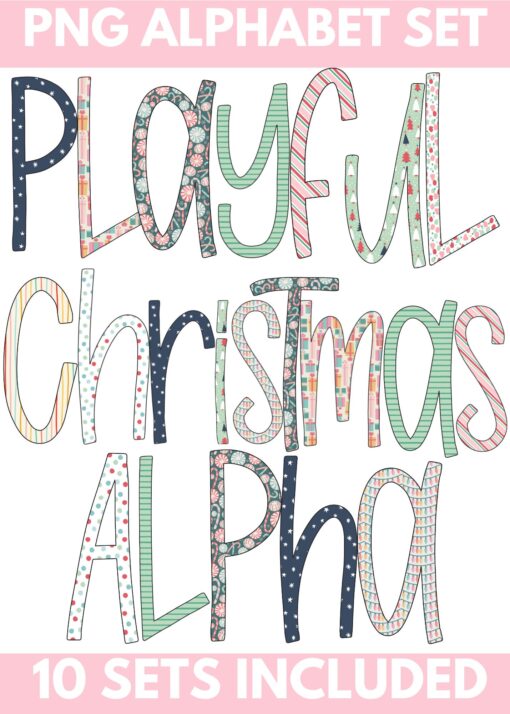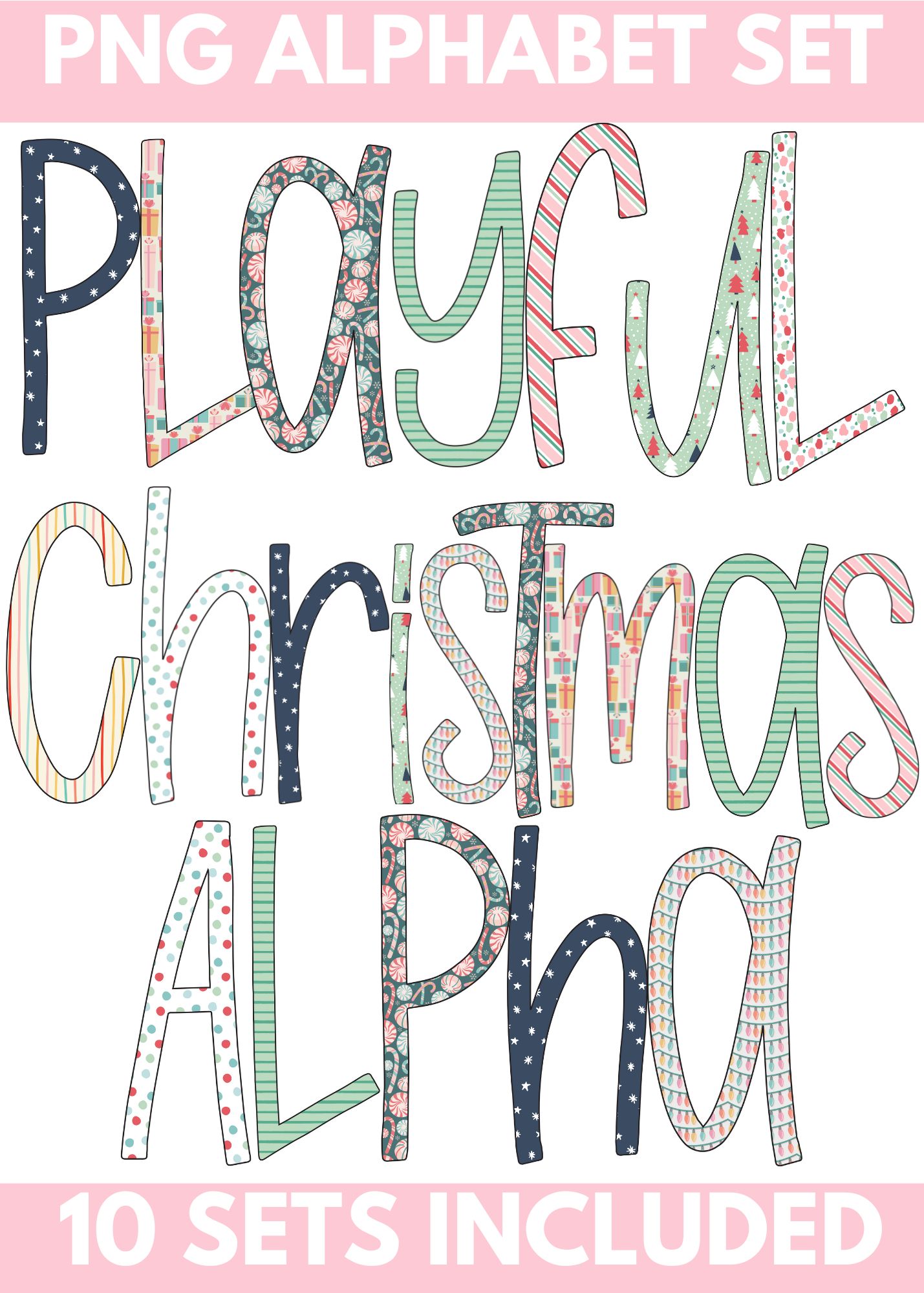
Playful Christmas PNG Alpha Font – 10 Complete Sets – DIGITAL DOWNLOAD
10-Set PNG Alpha Bundle – Patterned Designs
Take your designs to the next level with our PNG Alpha Bundle, featuring a variety of unique patterns! This versatile collection is perfect for T-shirt makers, crafters, and small business owners looking for creative, ready-to-use alphabets.
• 10 Unique Patterns to match any project or style.